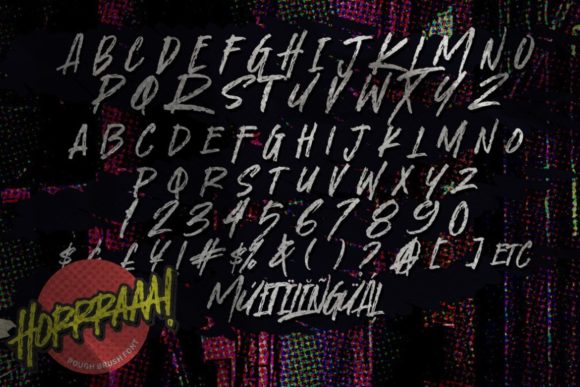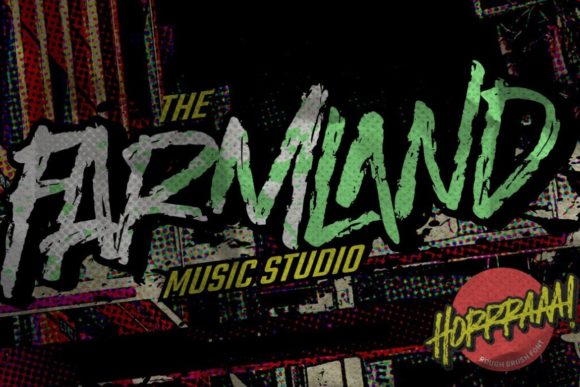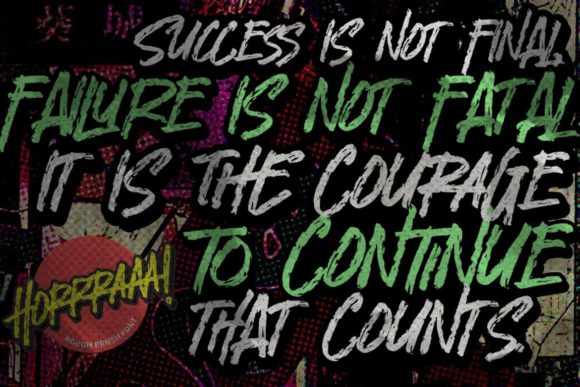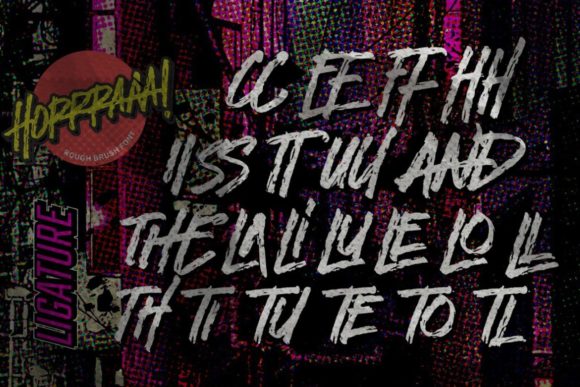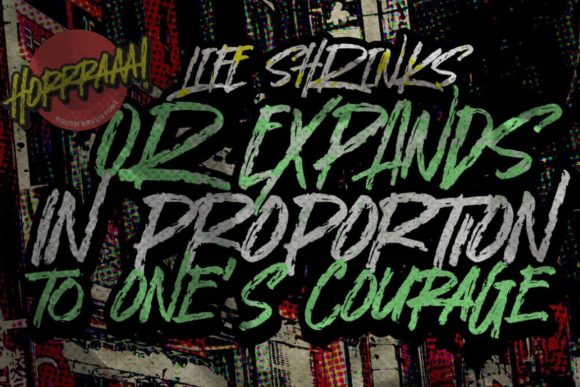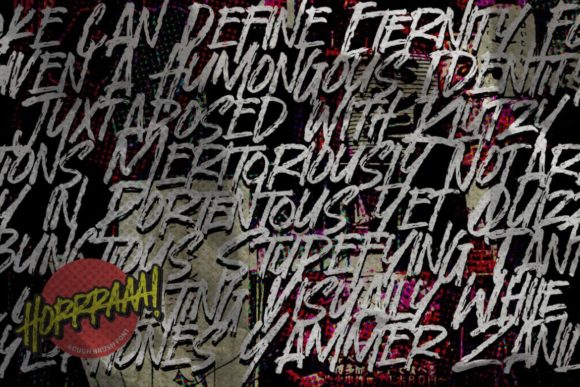
Introduction to Horrraaa Font
Remember that moment when you stumbled upon the perfect design element for your creative project? The one that elevates your concept and takes it to the next level? For designers, finding the right font can be a game-changer. And that’s exactly what the Horrraaa Font offers – a unique blend of futuristic and street art vibes that can instantly add a touch of edginess to your designs.
Key Features of Horrraaa Font
- Unique and bold design, perfect for creative projects and adding a touch of drama.
- Transparent background, allowing for seamless integration with any design element.
- Supports a wide range of languages, making it a versatile font for global creative projects.
Honest Review: Horrraaa Font
As a designer, I’m always on the lookout for high-quality design resources that can elevate my creative projects. Recently, I stumbled upon the Horrraaa Font, and I have to say, it’s been a game-changer for me.
What works well: ✨ The font is incredibly versatile and can be used for a wide range of design projects, from logos to typography-based artwork. The bold, edgy style is perfect for making a statement in any creative project. The transparent background option is also a major plus, making it easy to customize and layer with other design elements.
Here are some of my favorite features of the Horrraaa Font:
- Transparent background option for easy customization
- Perfect for logos, typography-based artwork, and more
Limitations: ⚠️ While the Horrraaa Font is an excellent addition to any designer’s toolkit, I do wish there were more font styles available. Additionally, the font may not be suitable for more conservative or traditional design projects.
Overall, I’m thoroughly impressed with the Horrraaa Font and would highly recommend it to any designer looking to add some edge to their creative projects. With its high-quality design and versatility, it’s a must-have for any design resource collection.
Tips for Getting the Most Out of Horrraaa Font
Common Use Cases for Horrraaa Font
Horrraaa Font is perfect for a variety of creative projects, including logos, posters, and social media graphics. Its high-quality design and transparent background make it a popular choice for designers.
Does the Horrraaa Font have a transparent background?
The Horrraaa Font has a transparent background, making it perfect for designs that require a high level of design flexibility. This feature allows designers to easily layer the font over other design elements, creating a seamless and polished look for their creative project.